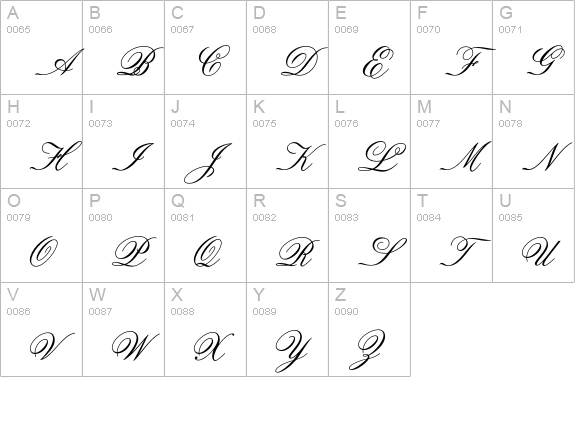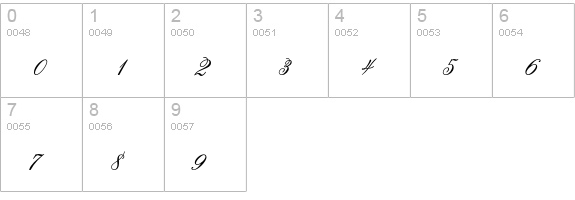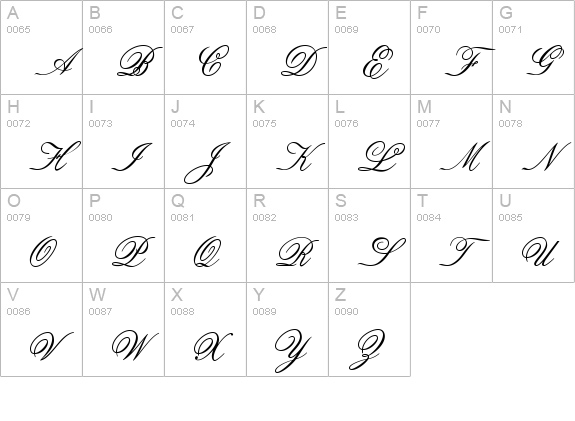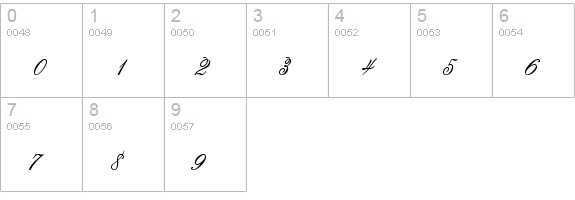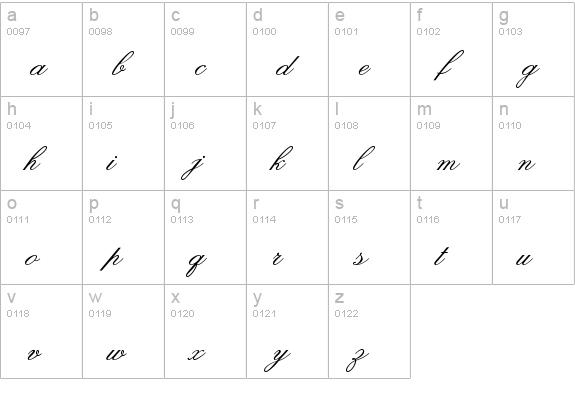
OPTIOldFashioned-Script Font Details
Introducing OPTIOldFashioned-Script font, a timeless and elegant typeface that brings a touch of old-world charm to any design project. With its intricate and ornate letterforms, this font exudes sophistication and class. The flowing curves and delicate details of OPTIOldFashioned-Script make it perfect for adding a touch of vintage flair to invitations, posters, logos, and more. Best of all, OPTIOldFashioned-Script is available for free download at FontsMarket.com. Whether you're a seasoned designer looking to add a classic touch to your work or a hobbyist seeking a unique font for personal projects, OPTIOldFashioned-Script is the perfect choice. Don't miss out on this stunning font that combines traditional elegance with modern accessibility. Download OPTIOldFashioned-Script today and elevate your designs with its timeless beauty.